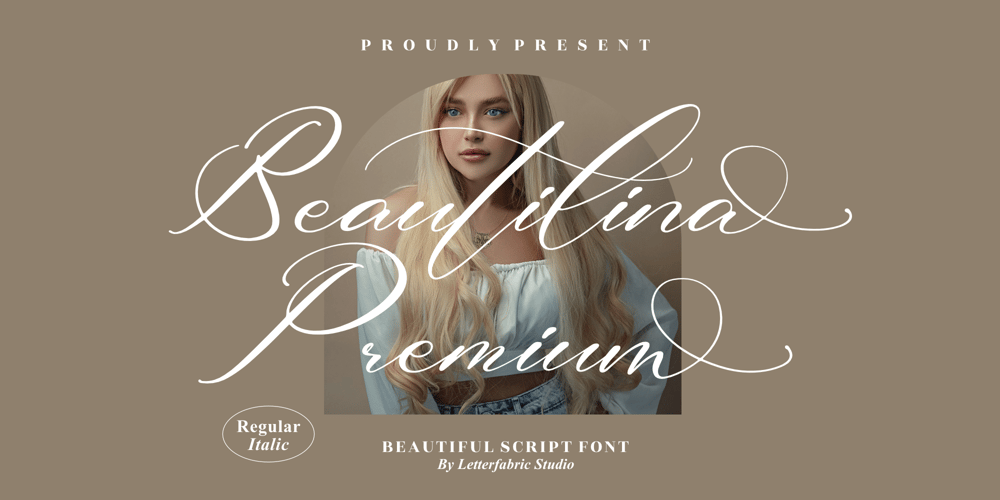
Beautilina Premium Font Family was designed by Heru Utama Putra and published by Letterena Studios. Beautilina Premium contains 2 styles and family package options. Beautilina Premium is a sweet and delicate handwritten font. Dainty and joyful, this font will be ideal for writing wedding invitations, cards or any other design that may need a romantic, personalized touch!Beautilina Premium is PUA encoded which means you can access all of the glyphs and swashes with ease!